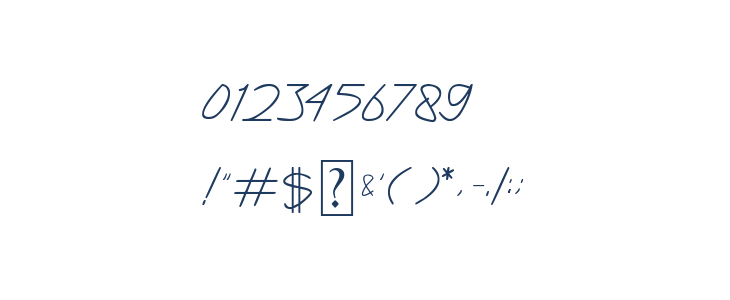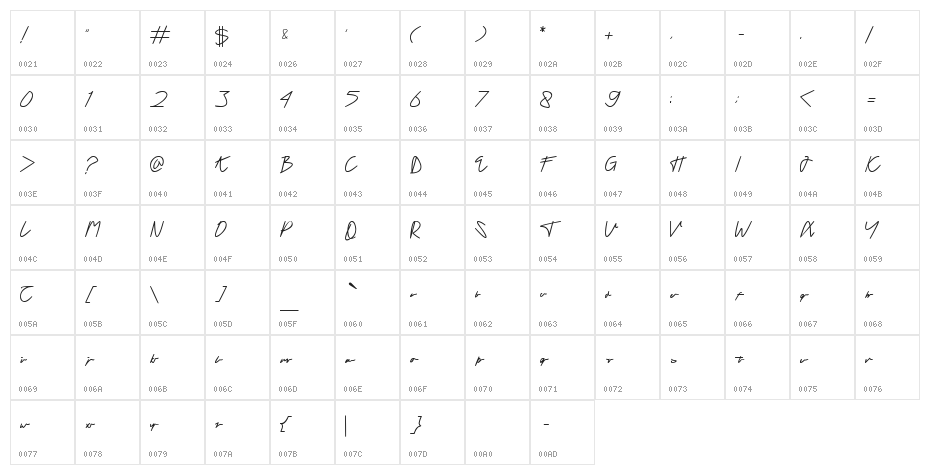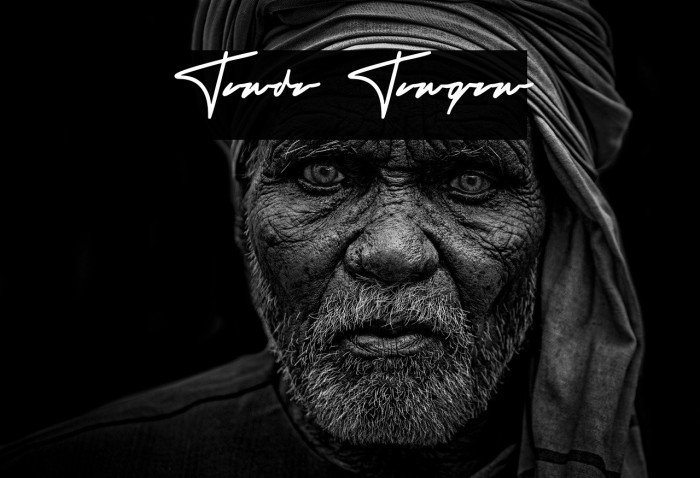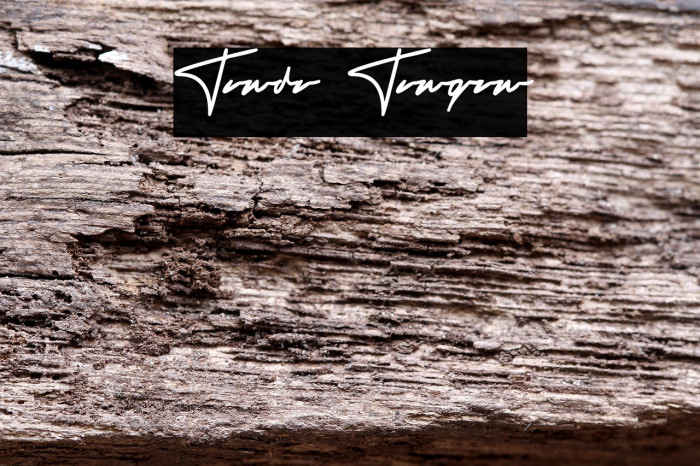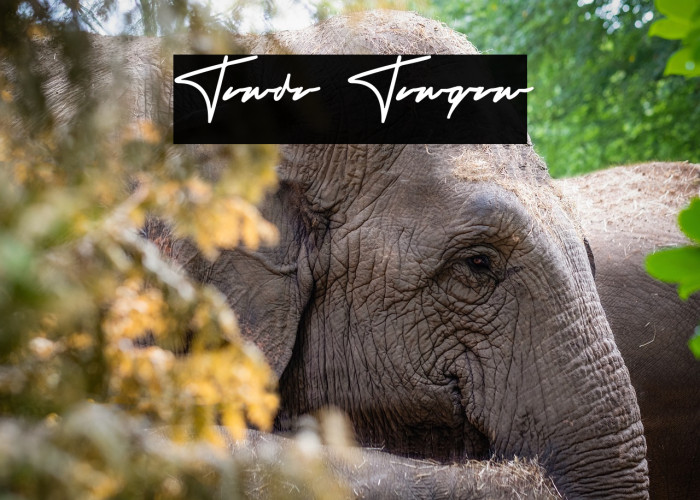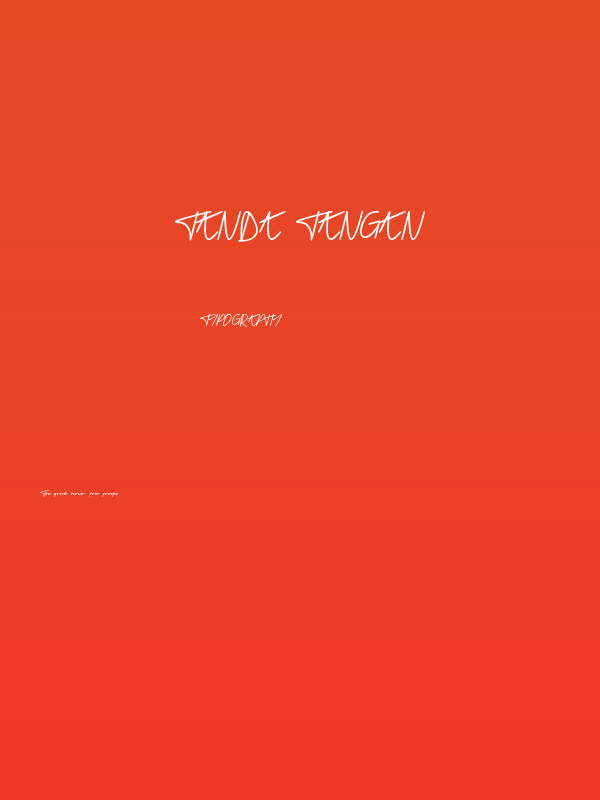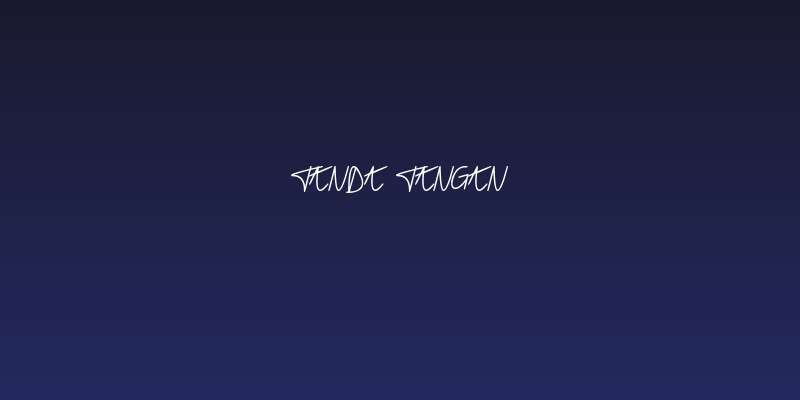
Tanda Tangan Font
Tanda Tangan Description
This font exudes a casual, handwritten style reminiscent of a personal signature. The characters are fluid and connected, giving an impression of elegance and spontaneity. The uppercase letters are bold and slightly slanted, while the lowercase letters maintain a consistent flow, enhancing the script-like appearance. Numbers and special characters are crafted with the same fluidity, ensuring a cohesive look across all elements. The overall design is sleek and modern, making it suitable for projects that require a personal touch.